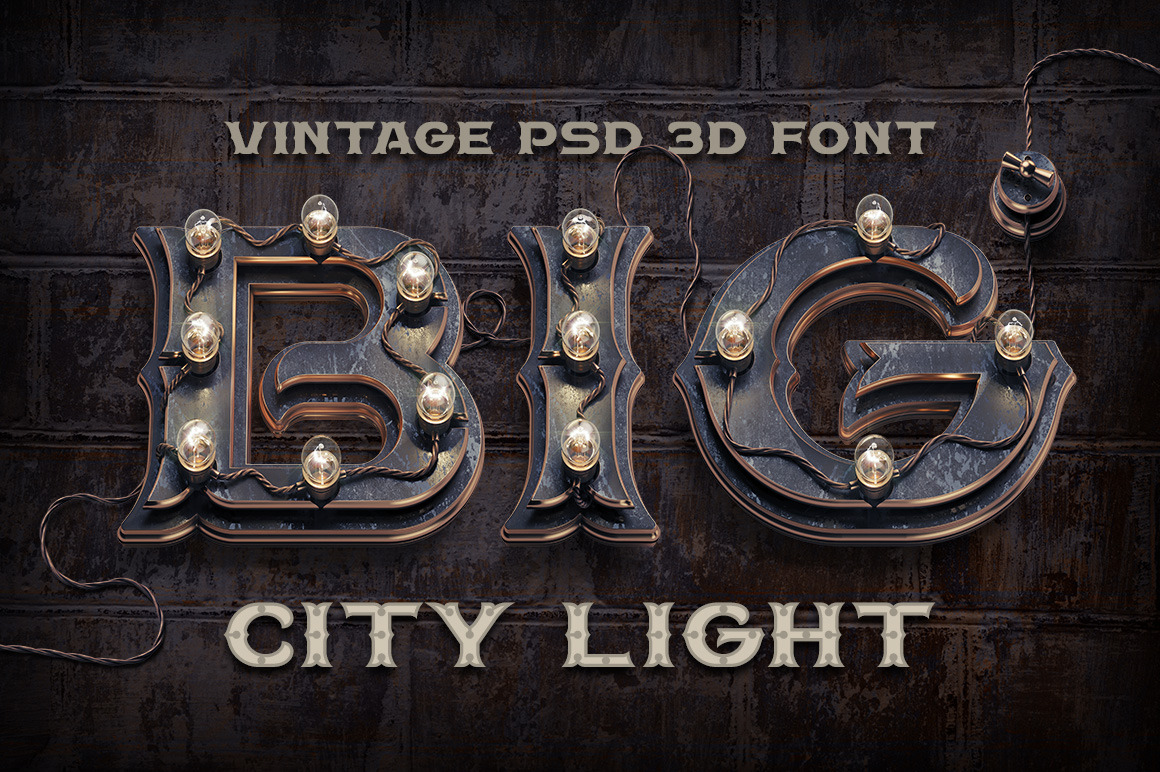
BIG City Light font
Introducing a vintage font named BIG City Light. It's a highly detailed steampunk style 3d rendered letters. You will get a PSD files with transparent background and separate shadow layer for each letter. Also an OTF & TTF base font is included.